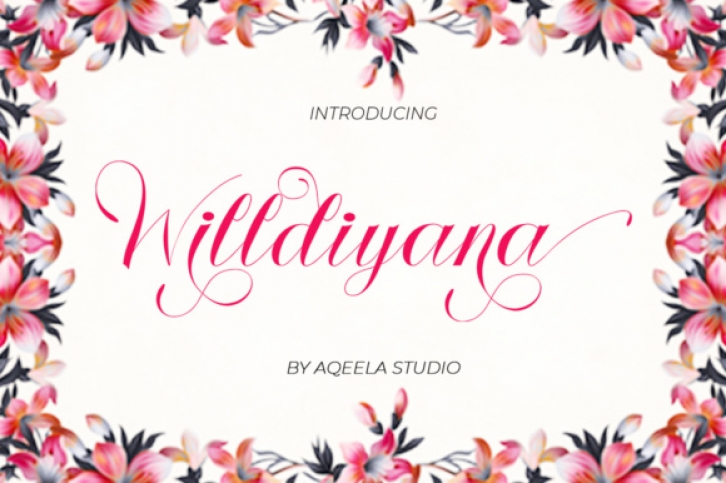
The Willdiyana Script is a modern calligraphy font. It’s characters are dancing around the baseline which gives it an elegant touch.
It can be used for various purposes such as logos, wedding invitations, headers, t-shirts, letterheads, signage, labels, news, posters, badges, and much more!